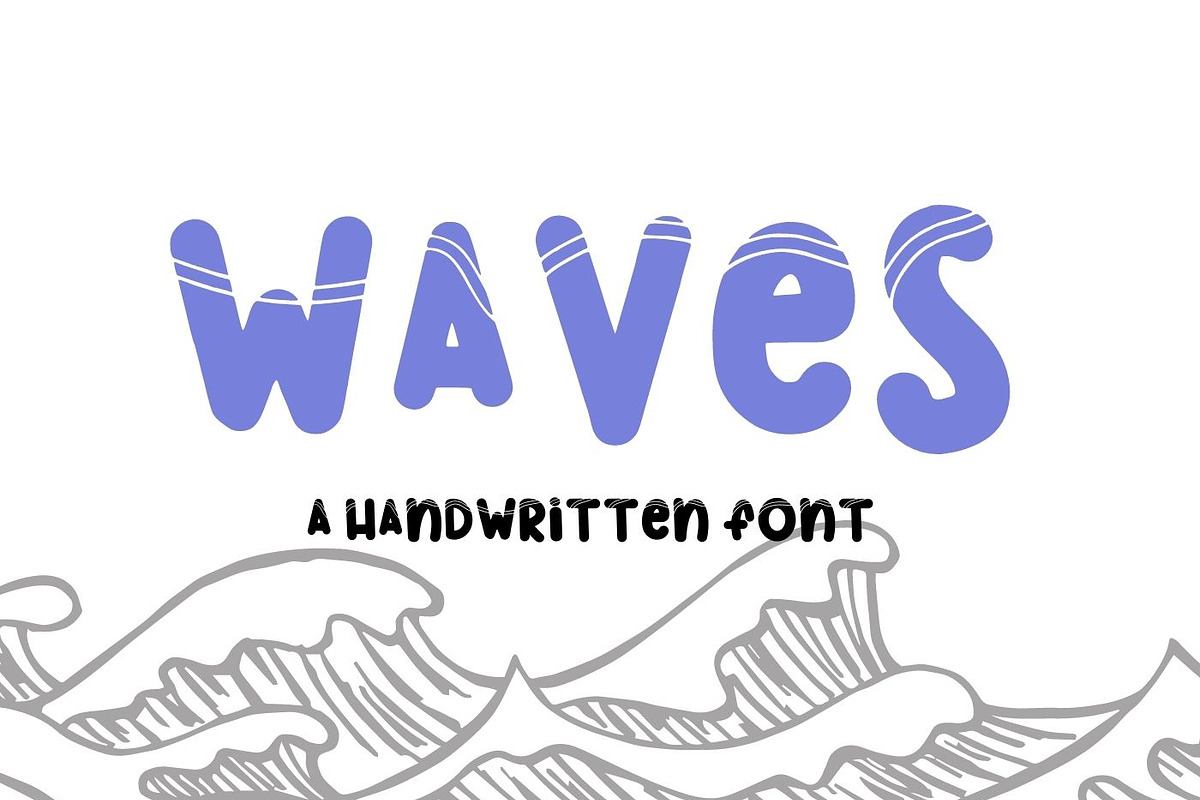
Waves Handwritten Bubble Font Free Download
Waves Handwritten Bubble Font Free Download is a fun, bubbly typeface that combines the casual charm of handwritten lettering with the playful nature of bold, rounded bubbles. Perfect for children’s designs, branding, posters, and social media graphics, Waves adds a cheerful and friendly vibe to any project.
This font’s easygoing style makes it ideal for projects that need to feel lighthearted and approachable. Whether you're designing for a youth brand, a party invitation, or crafting a fun logo, Waves Handwritten Bubble Font gives your typography a relaxed and playful character.